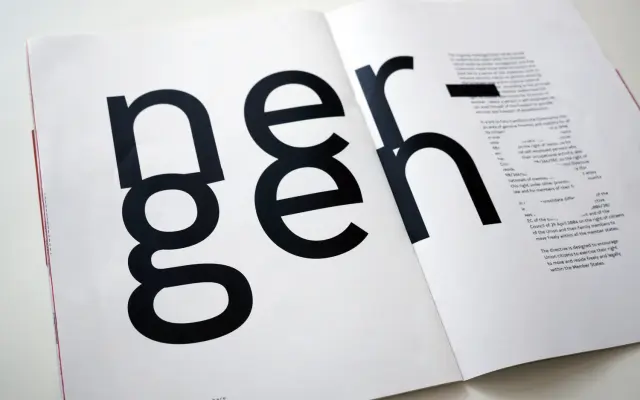
A geometric sans serif built across eight weights and three widths, with thorough OpenType support and a refined balance between mathematical construction and hand-drawn sensibility.
Typold spans 54 fonts across eight weights with matching italics and three widths, offering considerable range for display and text work alike. Details include small caps, twelve numeral variants, alternative lowercase forms for 'a' and 'y', and OpenType features covering fractions, case-sensitive punctuation and extended symbols including emojis. Language support covers Western, Southern and Central European Latin character sets.
Typold is explicitly constructed from mathematical inputs with geometric forms, placing it firmly in the geometric sans-serif tradition. The foundry describes it as a modern sans serif built on mathematical principles while also incorporating humanist refinement.